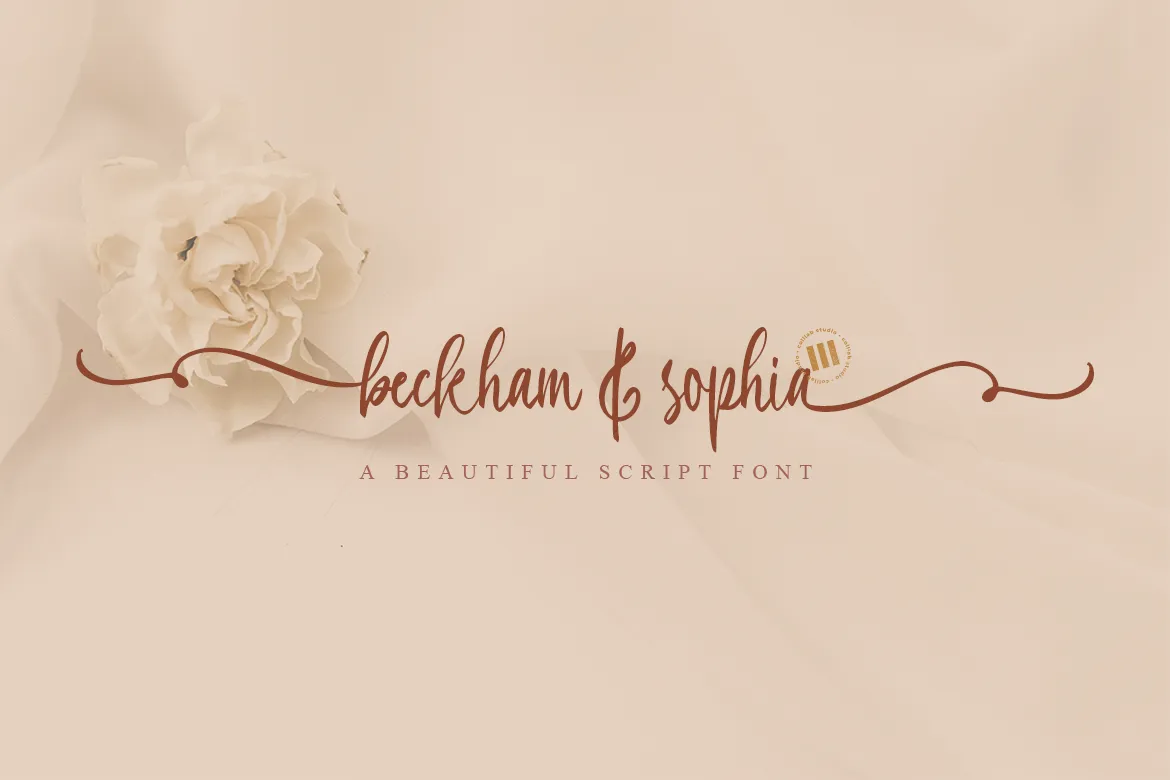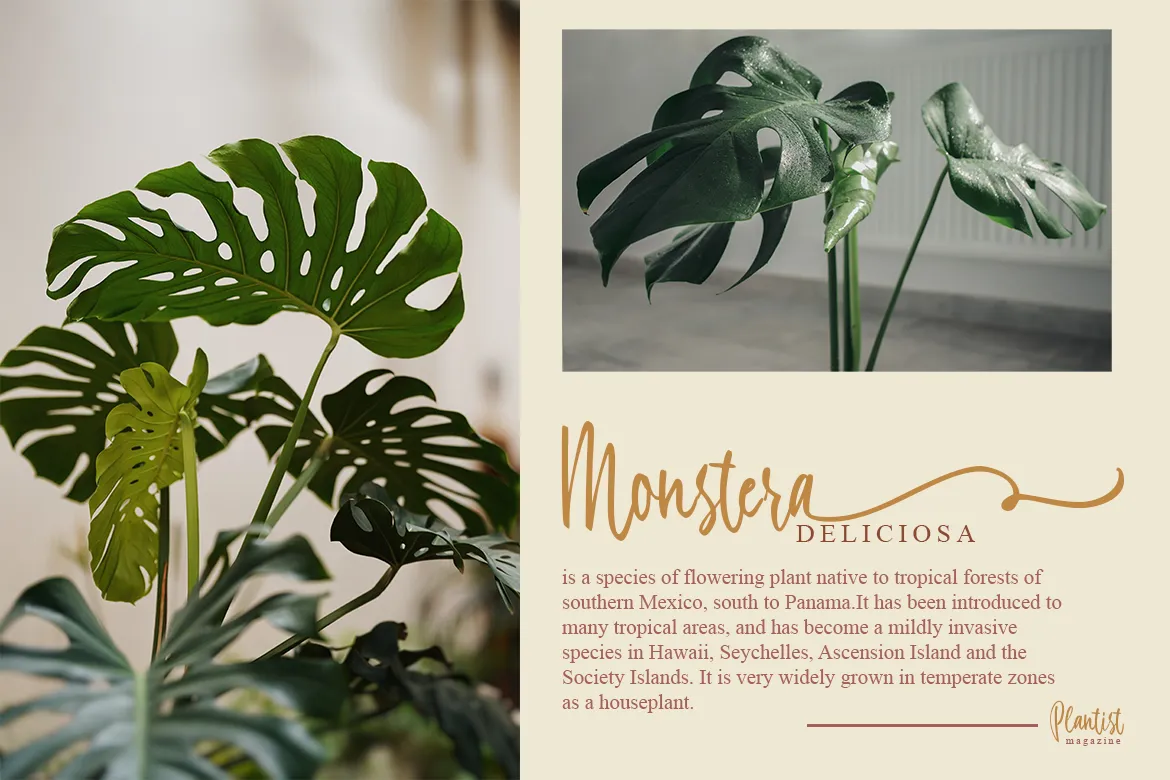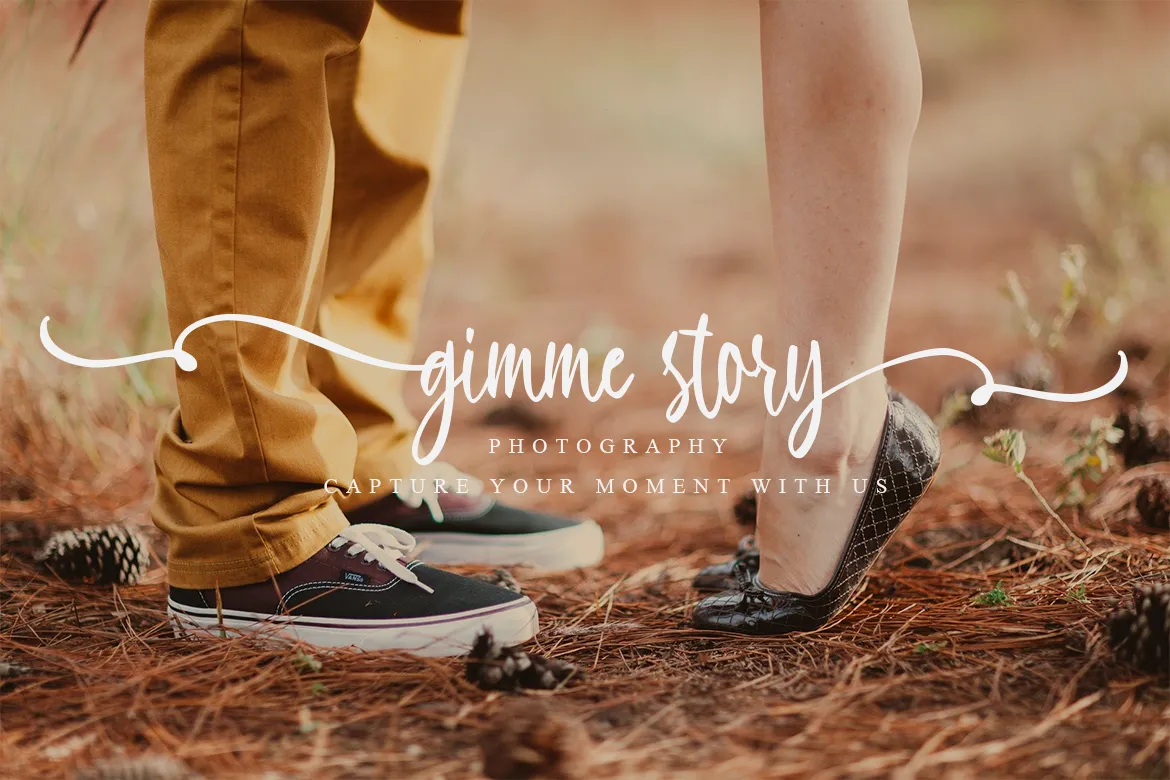
Beckham & Sophia is a beautiful, elegant script font with a luxurious aesthetic.
This font features an antique-style hand lettering and is ideal for adding a vintage feel to your design.
Beckham & Sophia This font has a ton of different styles: from thin to bold to totally ornamental, it’s a versatile typeface that is sure to fit your needs. This font will suit many creative projects such as wedding invitations, branding, logos, greeting cards, business cards, and more.
It includes a wide range of characters, ligatures, swashes, stylistic alternates and supports over 60 different languages including Spanish, Swahili, Swedish, Swiss, German, etc. We wanted to create a feminine yet sophisticated script font that would be versatile across many languages.